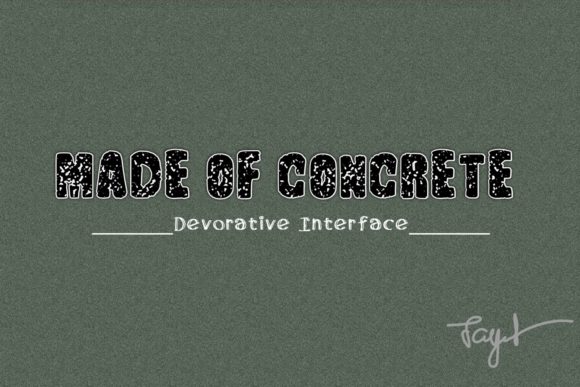
Journey into the realm of typography with Made of Concrete Font, a decorative font masterpiece crafted by the renowned Jagat Golder. Its stunning Concrete-inspired surface exudes a raw, industrial charm that will leave you spellbound.
Immerse yourself in the captivating world of Made of Concrete Font, where creativity knows no bounds. Unleash your imagination and watch as your titles, quotes, brand names, book covers, and posters come alive with a distinct, eye-catching appeal. Every design you create with Made of Concrete Font will be a testament to your impeccable taste and design prowess.
As you delve into the depths of Made of Concrete Font, you'll discover a universe of limitless possibilities. Its unique decorative style adds a touch of beauty and sophistication to any project, effortlessly elevating your designs to new heights. Whether you're a seasoned designer or just starting your creative journey, Made of Concrete Font will be your steadfast companion, guiding you towards design excellence.
Don't settle for ordinary fonts that blend into the background. Embrace the power of Made of Concrete Font and let your designs stand out from the crowd. Its versatility knows no bounds, adapting seamlessly to a myriad of design styles and concepts. From bold and edgy to elegant and timeless, Made of Concrete Font will effortlessly complement your vision and bring your creative ideas to life.
With Made of Concrete Font, the possibilities are endless. Transform your designs into captivating works of art, leaving a lasting impression on your audience. Its Concrete-inspired surface adds a touch of intrigue and mystery, encouraging viewers to delve deeper into your creations.
Elevate your design game and unlock a new realm of creativity with Made of Concrete Font. Its unique style and versatility will ignite your imagination and inspire you to create designs that resonate with your audience. Experience the magic of Made of Concrete Font today and embark on a journey of design excellence.